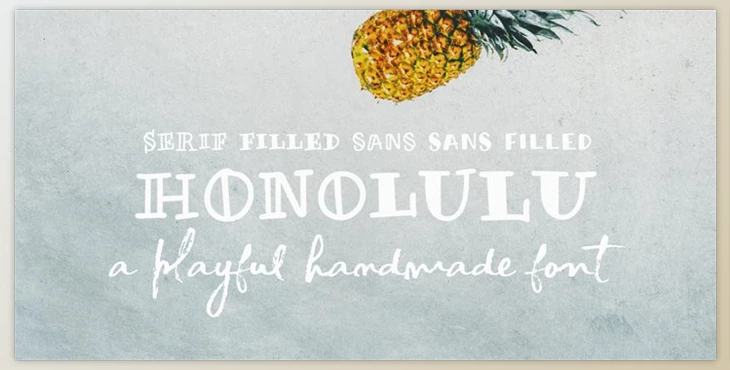
Honolulu Font Family – 8 Fonts:
Honolulu is a charming hand-drawn typeface with four different styles:
- Fill, regular, and without filled
- Additionally, there are jumpy versions of every font (accessed through the contextual alternative button).
The fresh and vibrant colors are perfect for summer months, and in any style that requires a striking hand-drawn style, such as postcards, notes, branding, quotes, logos, and other designs.